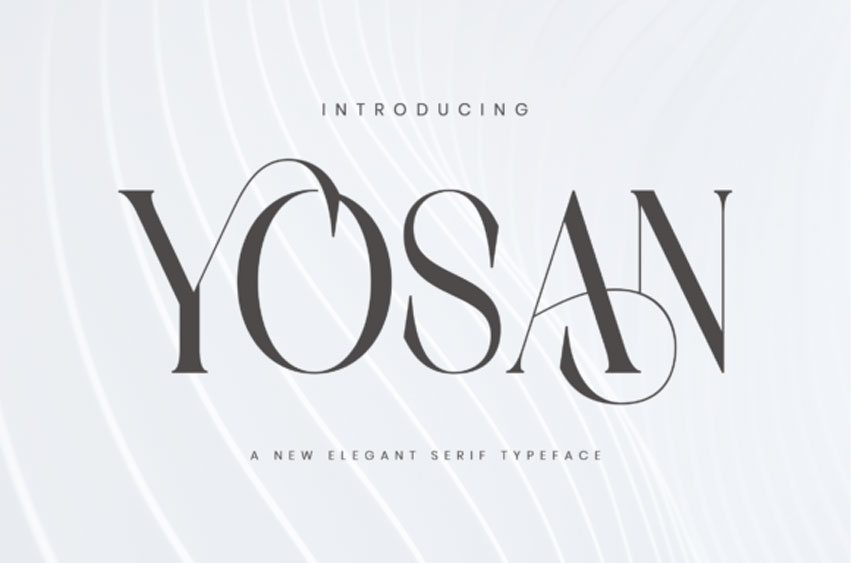
Yosan Font
Yosan Font is a stylish serif font that blends classic elegance with contemporary refinement. Featuring graceful serifs, balanced proportions, and finely crafted letterforms, it captures the timeless beauty of traditional typography with a modern twist.
Ideal for logos, editorials, invitations, and branding, it adds a sophisticated and polished touch to any design. With its versatile style and refined details, this font delivers both distinction and charm.